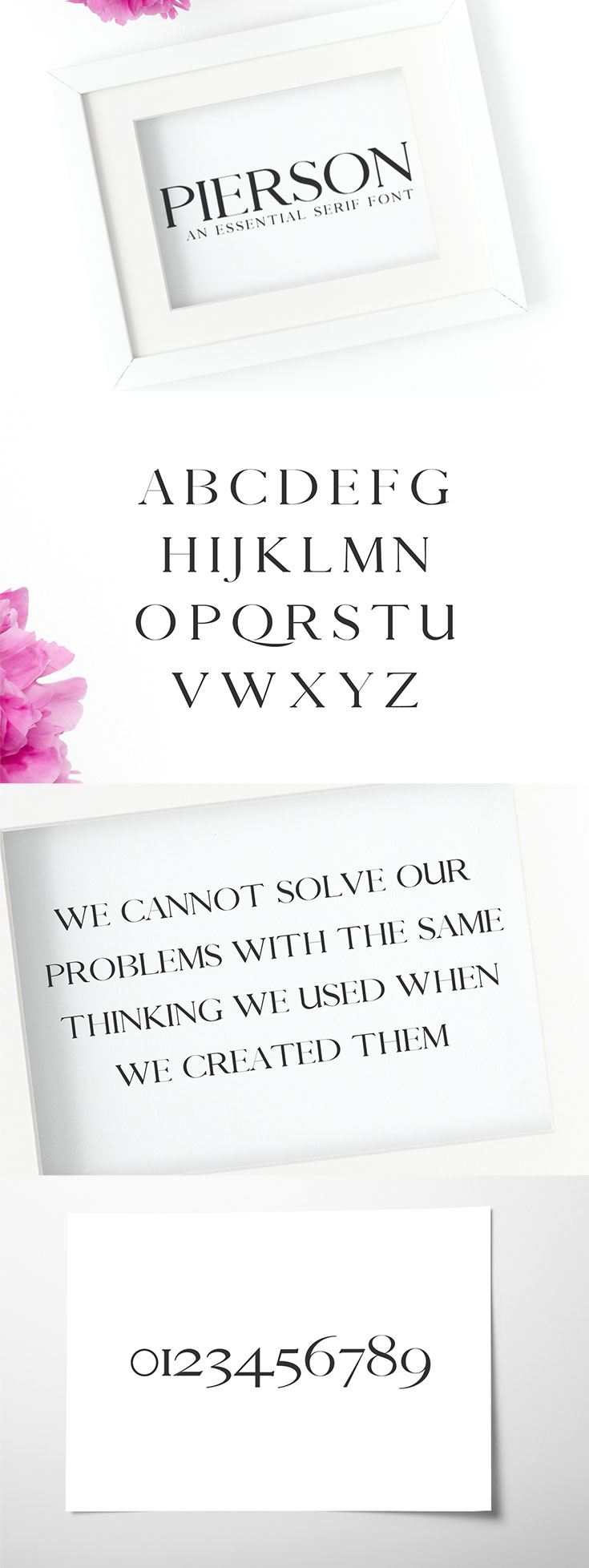
Exciting news! We’re sharing the Pierson Serif Font for free, perfect for your personal projects. This easy-to-use font includes large letters and numbers.
If you enjoy using this free sample, you might want to check out the full Pierson Serif Typeface. It’s bold and ideal for headlines, fitting for various uses from print to digital. It’s not just any font; it’s your go-to for creating standout designs. It’s perfect for different types of branding like candles, fashion, luxury items, and jewelry. Plus, it’s great for both web and print materials, even books. If you’re looking to enhance your creative projects, consider the full version for even more possibilities.
It also excels in posters, packaging, presentations, logo, quotes, titles, magazines headings, web layouts, advertising, invitations, packaging design, and nearly any creative design.
Font Case:Uppercase and Number Only
Category:Serif Font